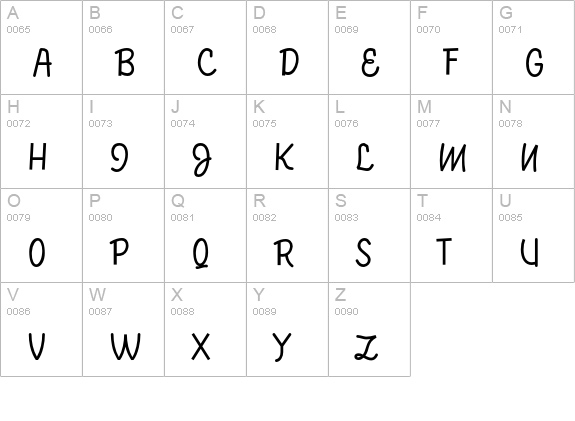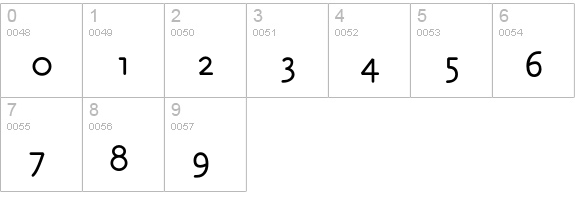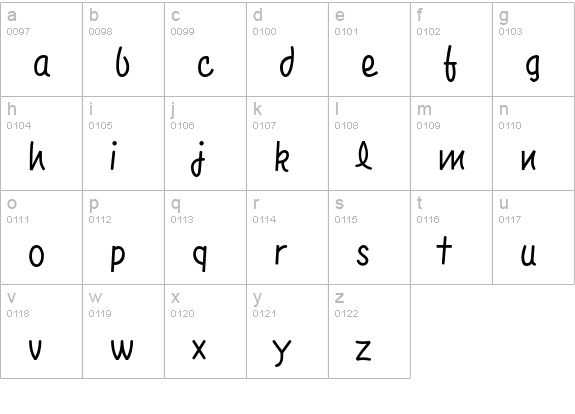
ElliottsVenusDioxide Font Details
ElliottsVenusDioxide font is a stunning display typeface that exudes elegance and sophistication. With its sleek lines and modern design, this font is perfect for creating eye-catching headlines, logos, and branding materials. The unique combination of sharp angles and smooth curves gives ElliottsVenusDioxide a contemporary and stylish look that will make your designs stand out. Best of all, this font is completely free to download at FontsMarket.com, making it accessible to designers of all skill levels. Whether you're working on a personal project or a professional design, ElliottsVenusDioxide is sure to add a touch of luxury and class to your work. Embrace the beauty and versatility of this font today and elevate your designs to new heights.